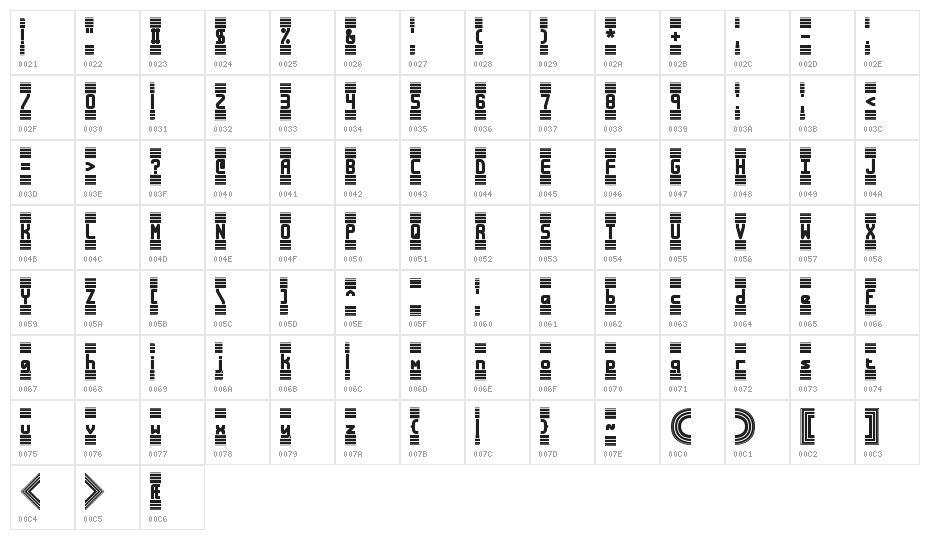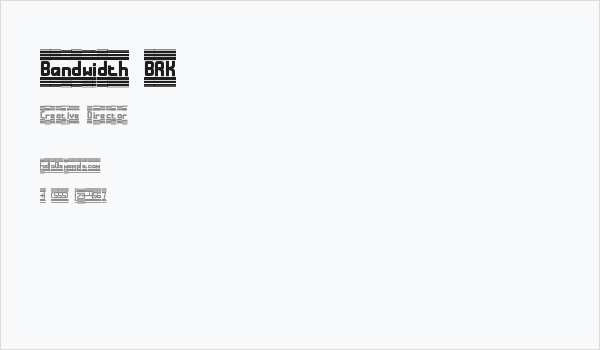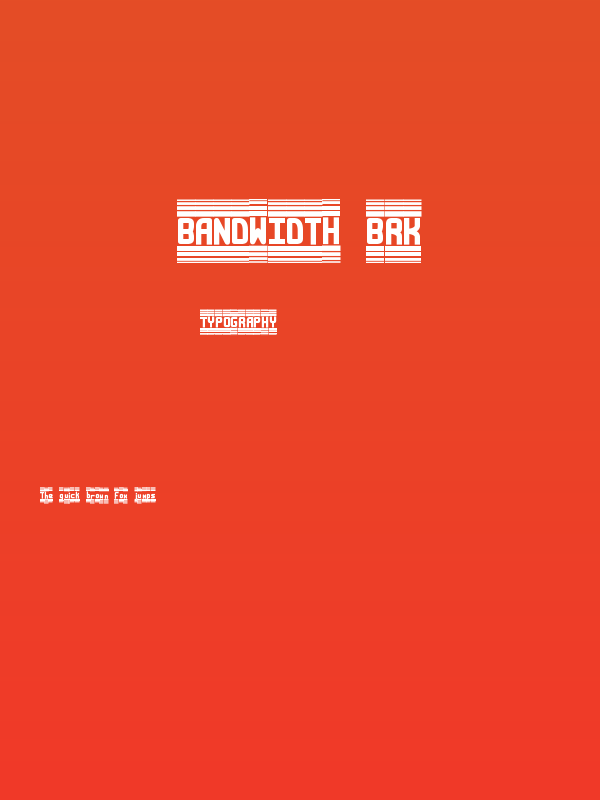
Bandwidth BRK Font
Bandwidth BRK Description
This font features a bold, modern design with a unique, futuristic aesthetic. The characters are constructed with thick, uniform strokes, creating a strong visual impact. The uppercase and lowercase letters maintain a consistent style, with rounded edges and a slightly condensed form. The numbers and special characters follow the same design principles, ensuring a cohesive look across all elements. The font's geometric structure and bold appearance make it ideal for projects that require a contemporary and eye-catching typeface.
Proposed ProjectsIdeal for technology branding, sci-fi themed projects, posters, and digital media.